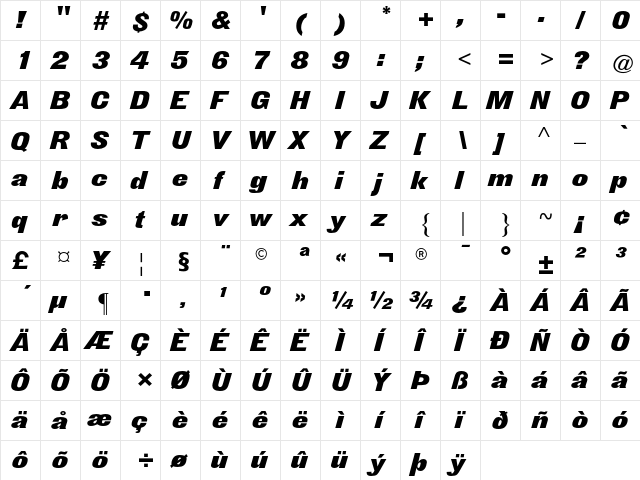
Derek AT Italic Regular
Design Context for Derek AT Italic Typeface
Derek AT Italic takes a measured approach to typography — its balanced proportions and neutral character make it a reliable workhorse for both digital and print work. The dynamic lean of this cut emphasises speed and emphasis in any layout.
Pro Tip: Use Derek AT Italic for emphasis, pull quotes, and subheadings where its slanted energy can add rhythm to the layout.